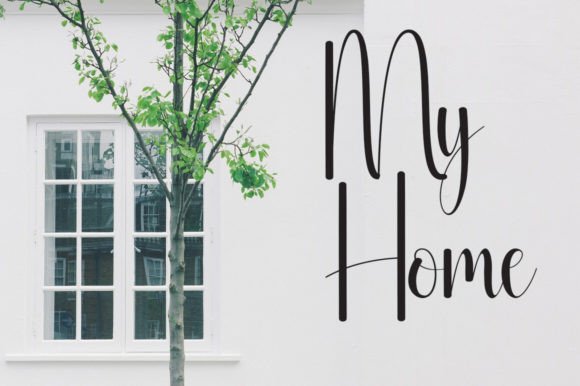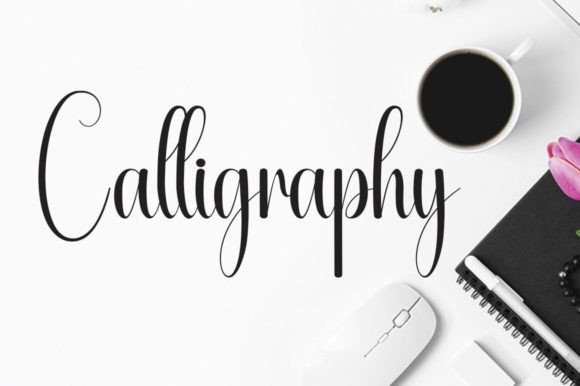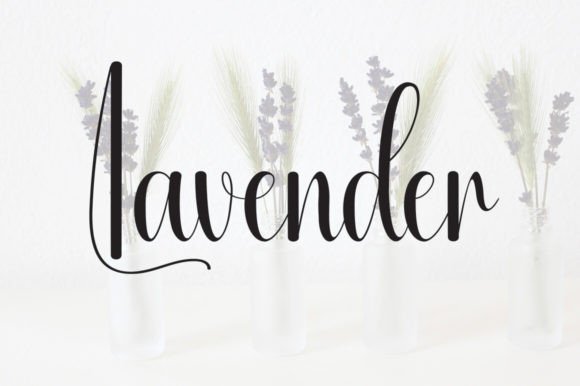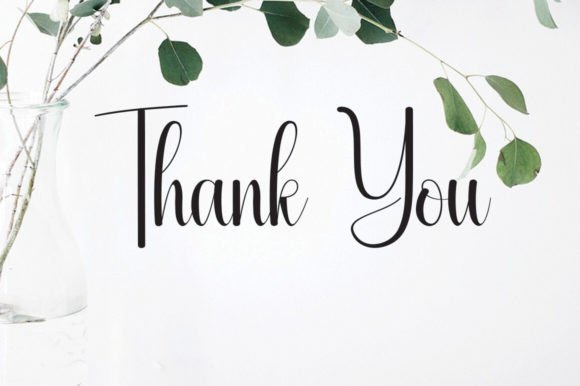
Discover the Allure of Boarding Font: Elevate Your Designs with Elegance and Whimsy
In the world of typography, few fonts capture the essence of sweetness and delicacy as beautifully as Boarding. This stunning cursive handwritten font is a masterpiece of design, imbuing every project with a romantic whimsy and joyful undertone that is simply irresistible. Whether you’re a designer, crafter, or simply someone who appreciates the art of beautiful typography, Boarding is sure to captivate your heart and inspire your creativity.
The Essence of Boarding Font
Boarding font is a beautifully crafted cursive script that exudes elegance and sophistication. Its graceful flow and tender appeal make it the perfect choice for designers and crafters looking to add a touch of whimsy and romance to their projects. With its delicate strokes and charming letterforms, Boarding is sure to transform ordinary design concepts into charming artworks that capture the imagination.
Unleashing the Versatility of Boarding
One of the standout features of Boarding font is its incredible versatility. Whether you’re aiming for sophistication or playful fun, this font adapts seamlessly to your design needs. From elegant wedding invitations and stylish branding materials to playful greeting cards and whimsical craft projects, Boarding elevates every creation into visual poetry.
The Benefits of Using Boarding Font
So why choose Boarding font for your next project? Here are just a few benefits of using this stunning font:
- Elegance and Sophistication: Boarding font adds a touch of elegance and sophistication to any design, making it perfect for high-end branding, wedding invitations, and other special projects.
- Whimsy and Playfulness: With its joyful undertone and romantic whimsy, Boarding font is also perfect for playful and fun designs, such as greeting cards, children’s party invitations, and craft projects.
- Versatility: Boarding font adapts seamlessly to different design styles and needs, making it a versatile addition to any designer’s toolkit.
- Easy to Read: Despite its elegant and cursive nature, Boarding font is surprisingly easy to read, making it perfect for body text and longer design projects.
Using Boarding Font in Your Designs
So how can you start using Boarding font in your designs? Here are a few tips and ideas to get you started:
- Pair with Bold Fonts: Boarding font looks stunning when paired with bold, sans-serif fonts. Try using it in combination with a bold font to create striking headlines and titles.
- Add Decorative Elements: Boarding font is perfect for adding decorative elements to your designs, such as flourishes, swashes, and other embellishments.
- Experiment with Colors: Boarding font looks beautiful in a range of colors, from soft pastels to rich jewel tones. Experiment with different colors to find the perfect combination for your design.
In conclusion, Boarding font is a stunning cursive handwritten font that captures the essence of sweetness and delicacy. With its elegant flow, tender appeal, and joyful undertone, this font is sure to transform ordinary design concepts into charming artworks. Whether you’re a designer, crafter, or simply someone who appreciates beautiful typography, Boarding is a must-have font that will elevate your creations into visual poetry.